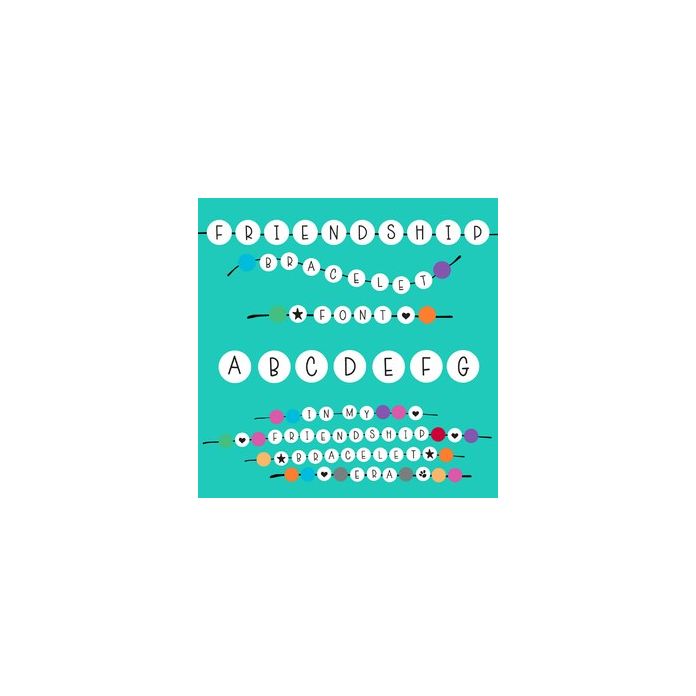
Friendship Bracelet Font
Round white beads for letters also includes color beads to mix up patterns, numbers, icons and straight and wavy threads to create your own friendship bracelet words, titles and quotes.